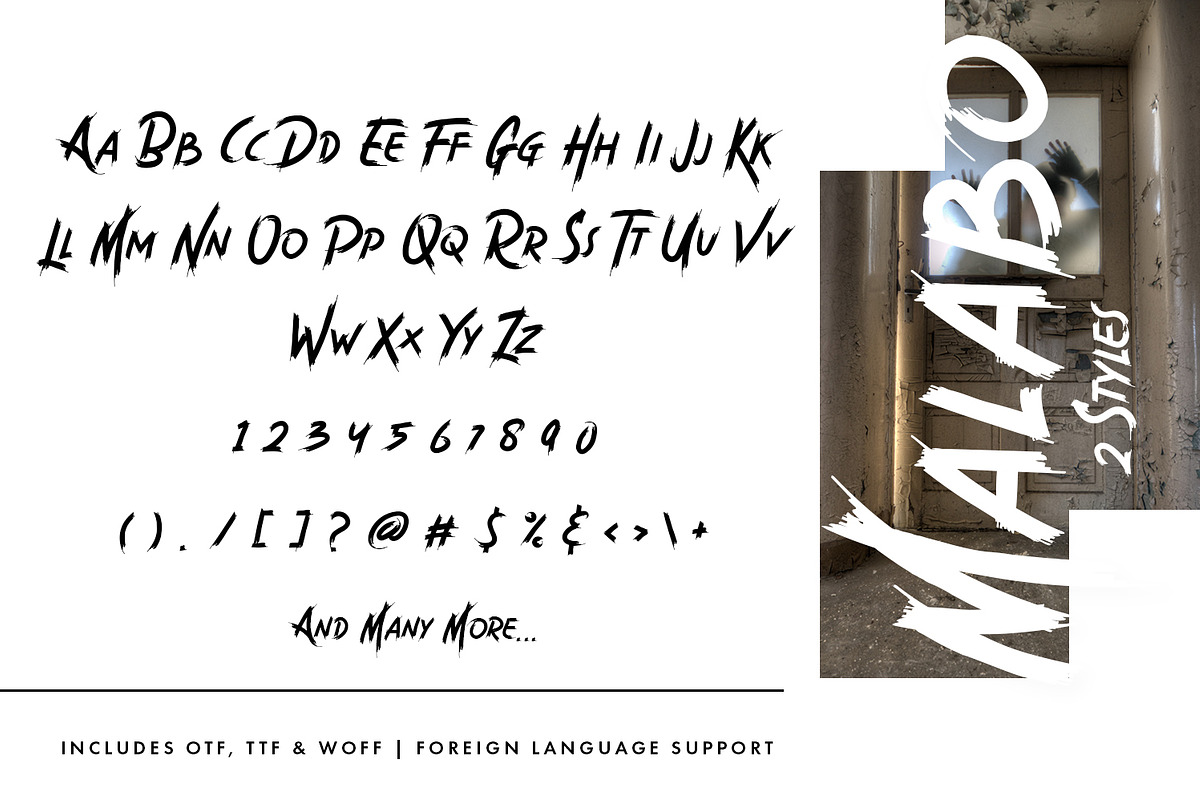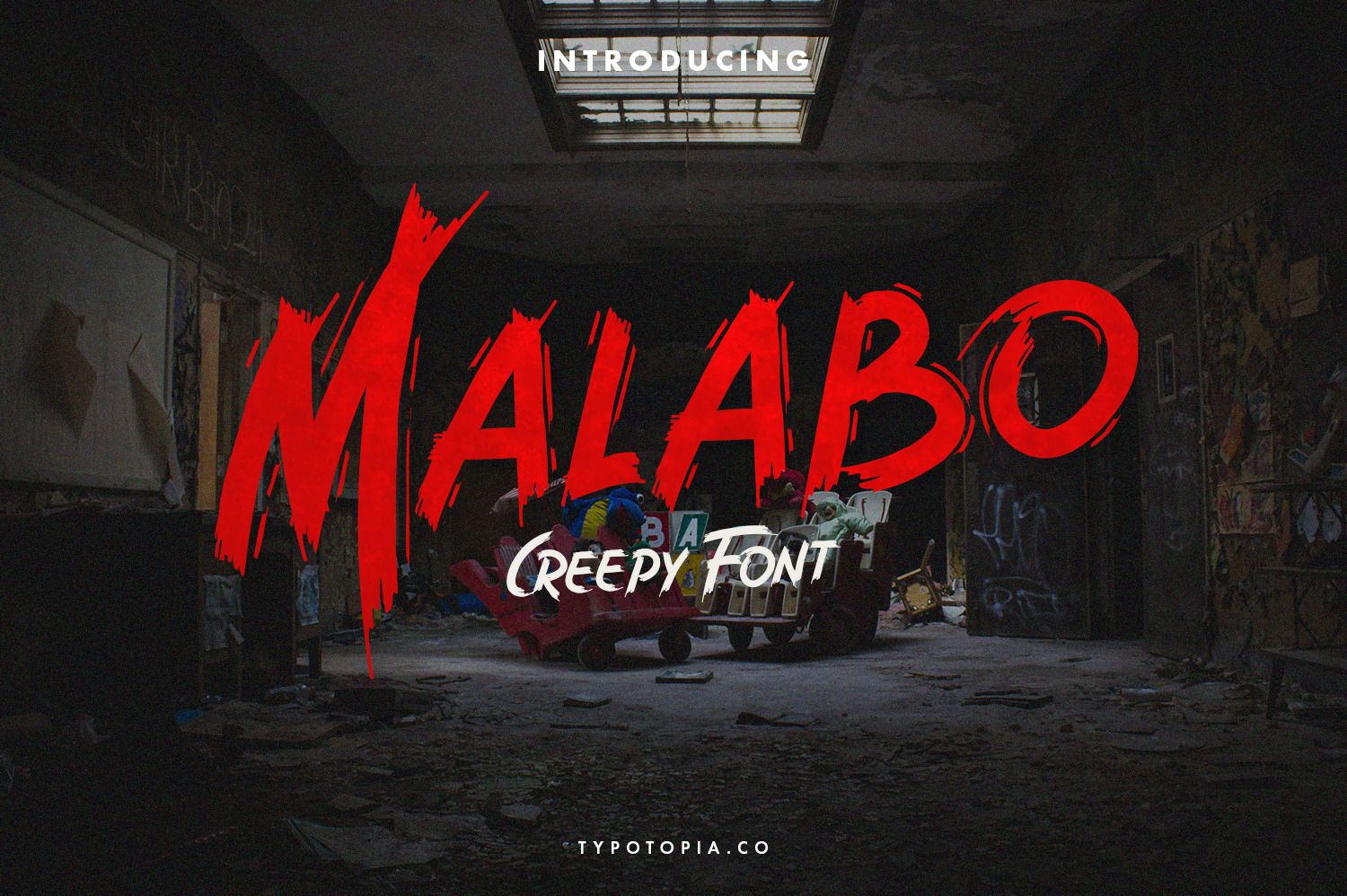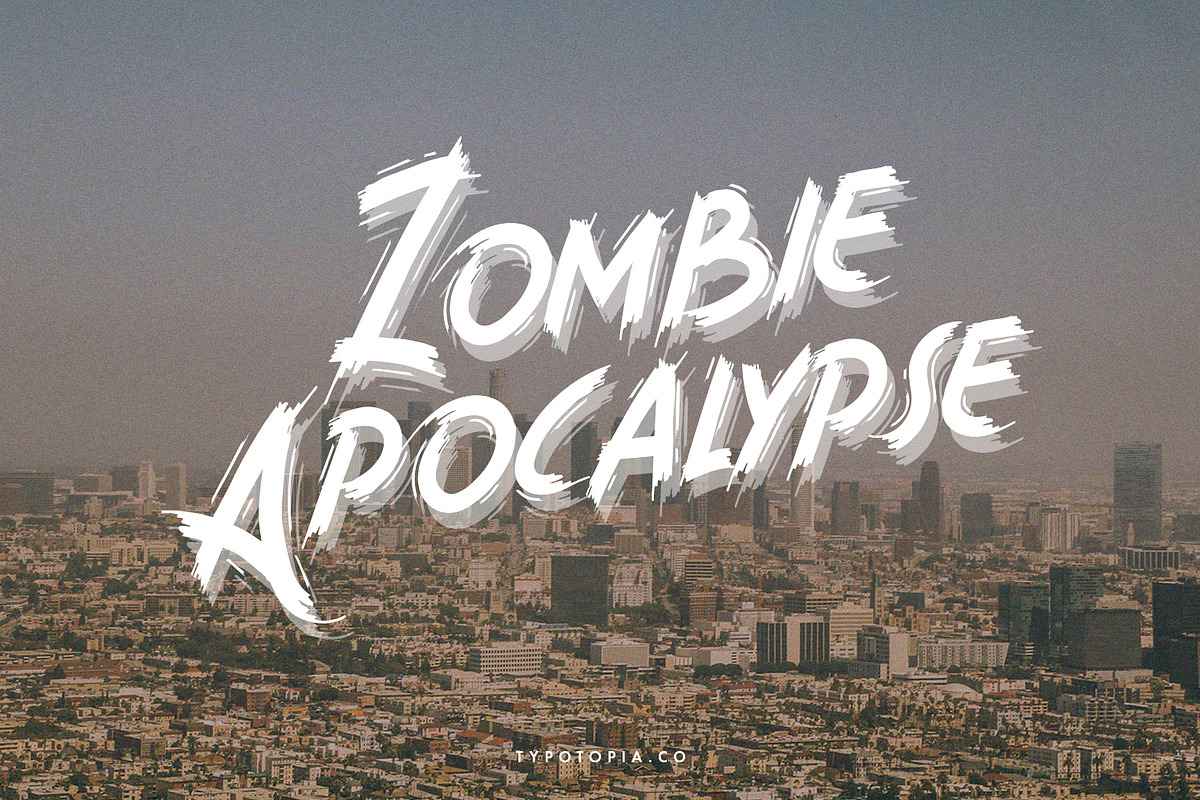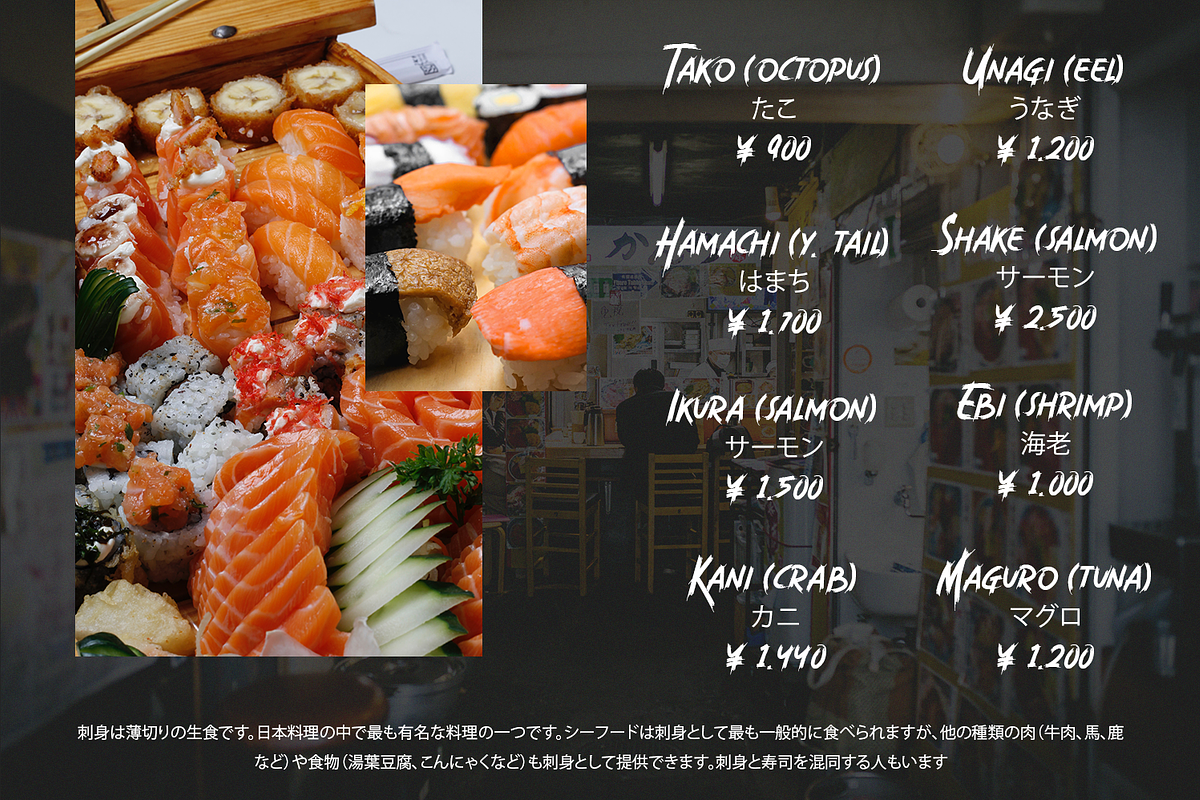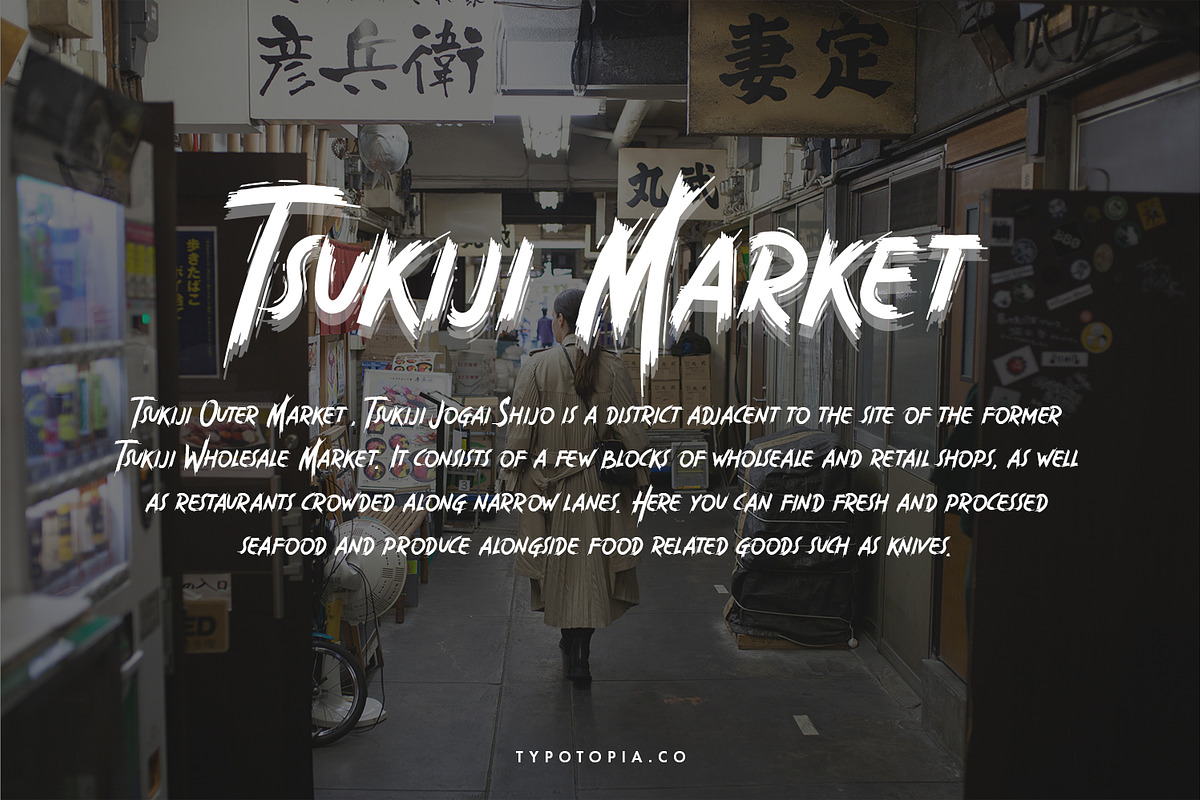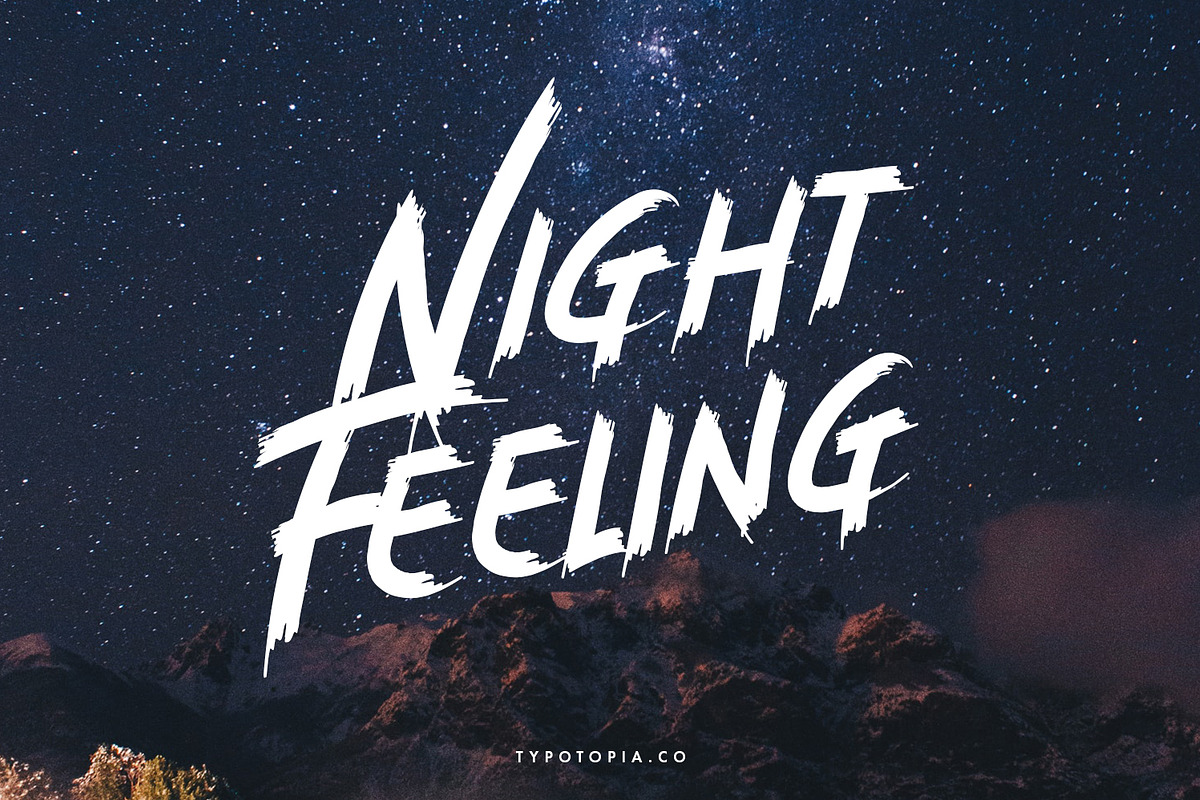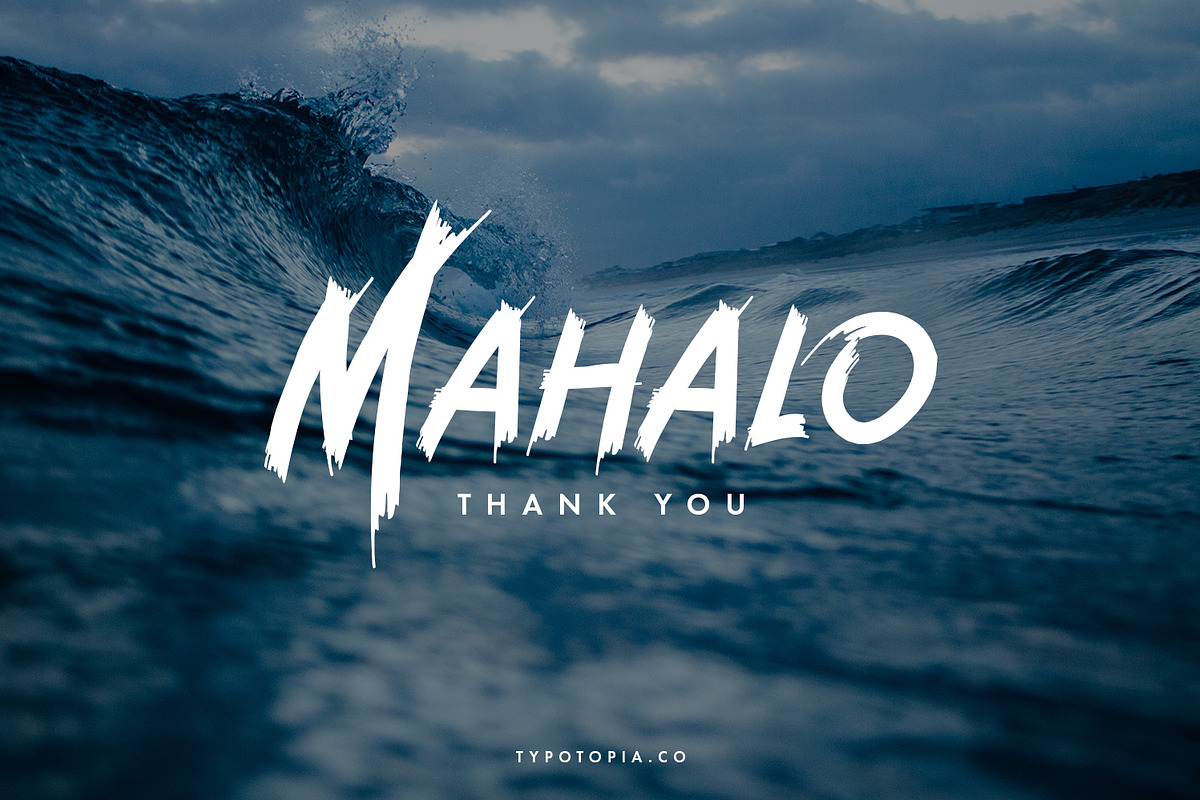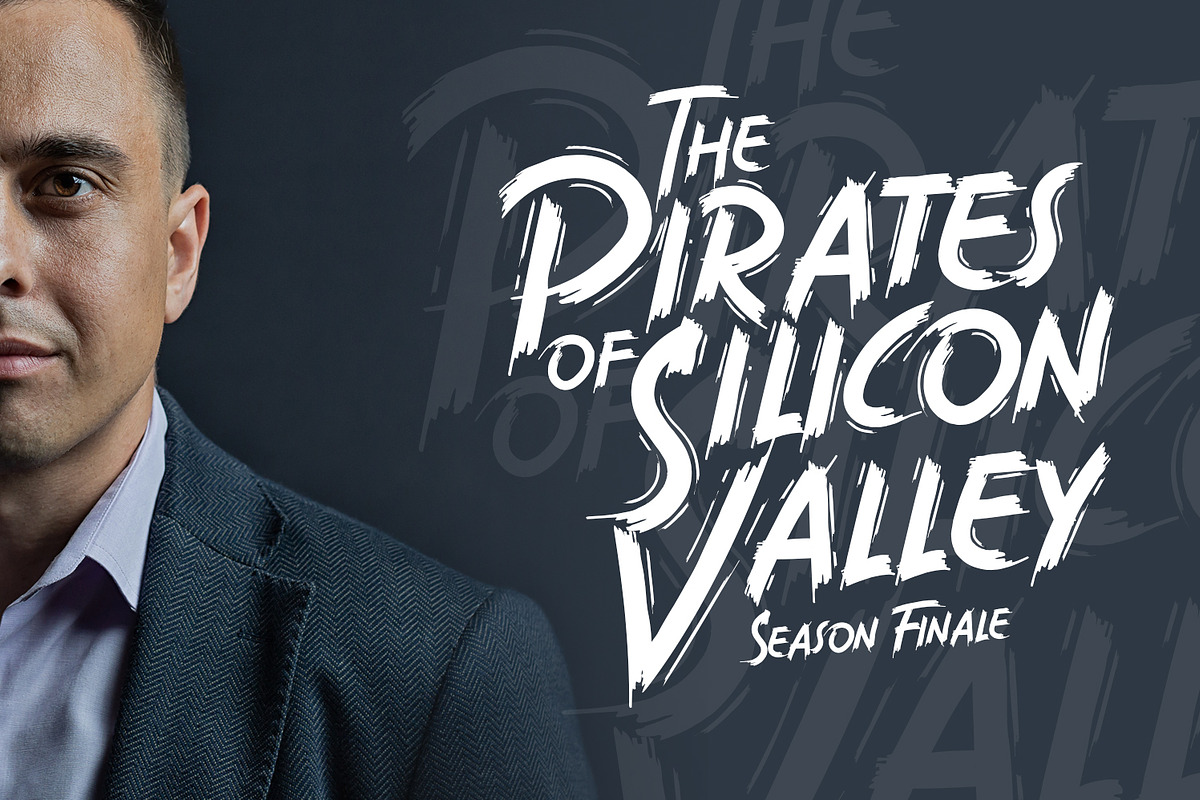
Malabo - Creepy Font
We're Proudly Introduce to all of you, Malabo, Creepy Font. This Typeface Comes with 2 Style of Fonts that you can use.
Malabo is the great choice for several purpose, it suitable for for headline, logotype, apparel, invitation, branding, packaging, advertising etc.
Malabo also Support Multilingual Feature for Foreign Language, here’s the list :
áäåãéèëìïîòöôøùüAÀÁÂÃÄÅEÈÉÊËIÌÍÎÏNÑOÒÓÔÕÖUÙÜÚÛYÝŸ?Ÿ
- Uppercase & Lowercase letters